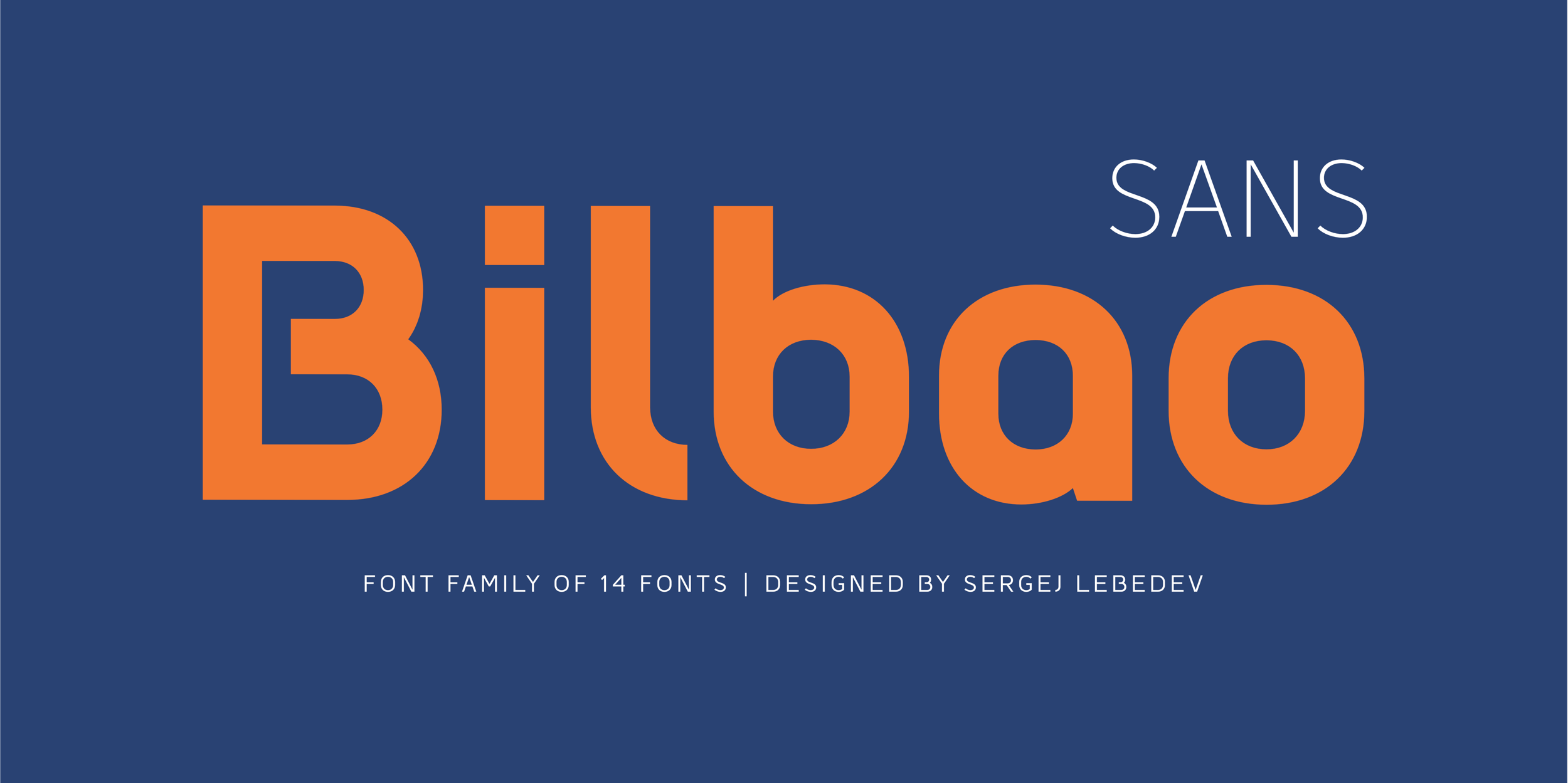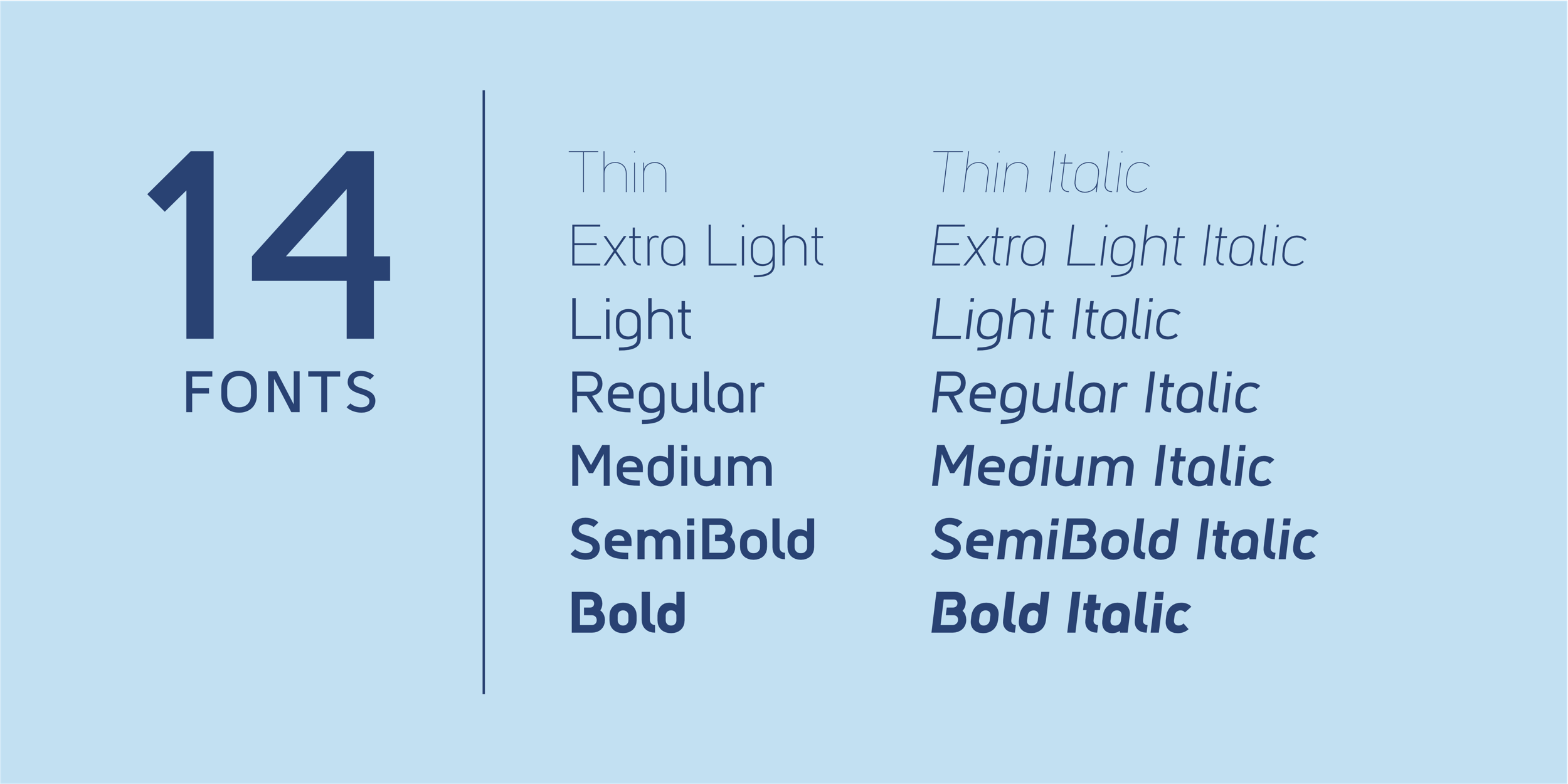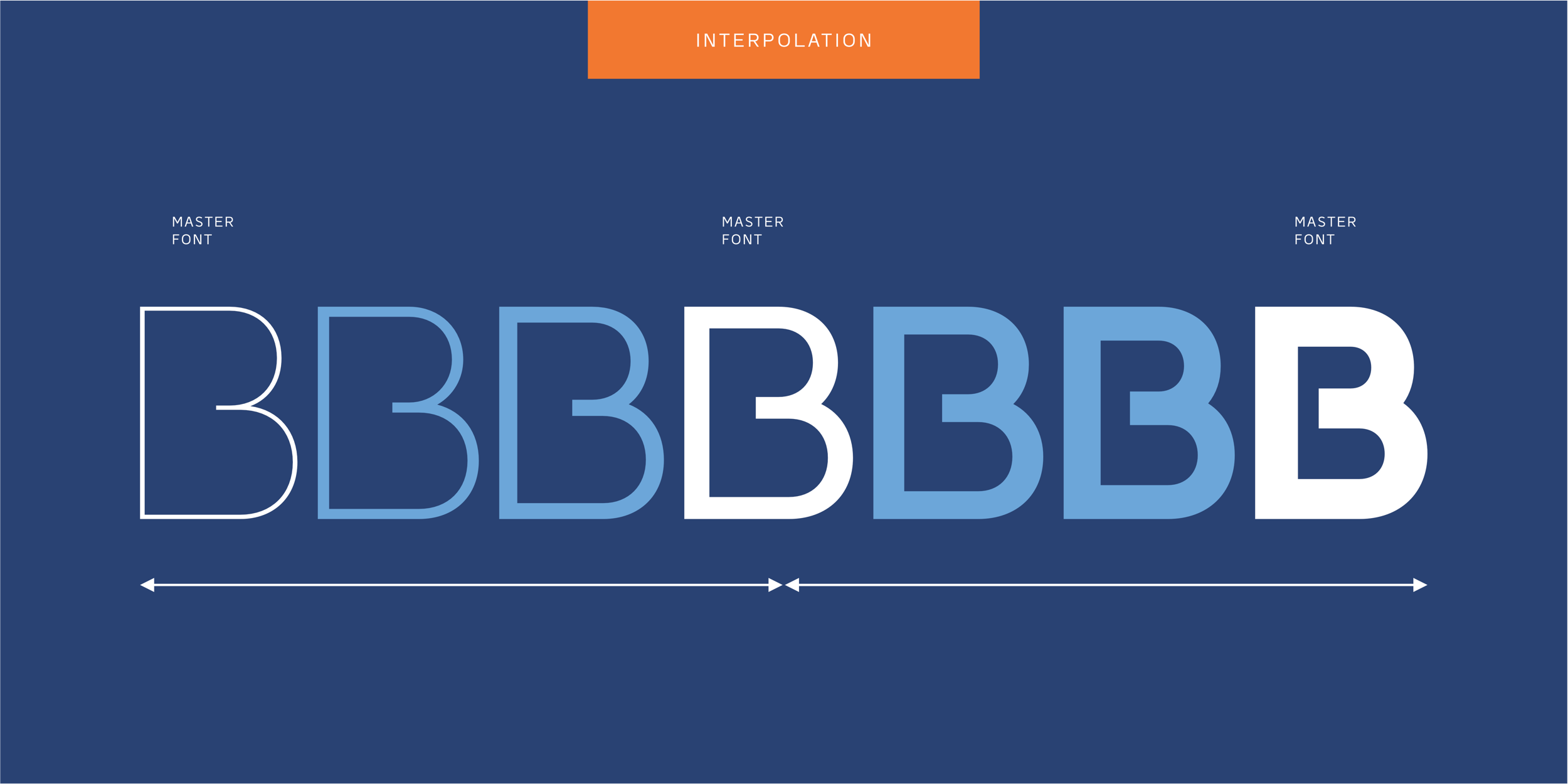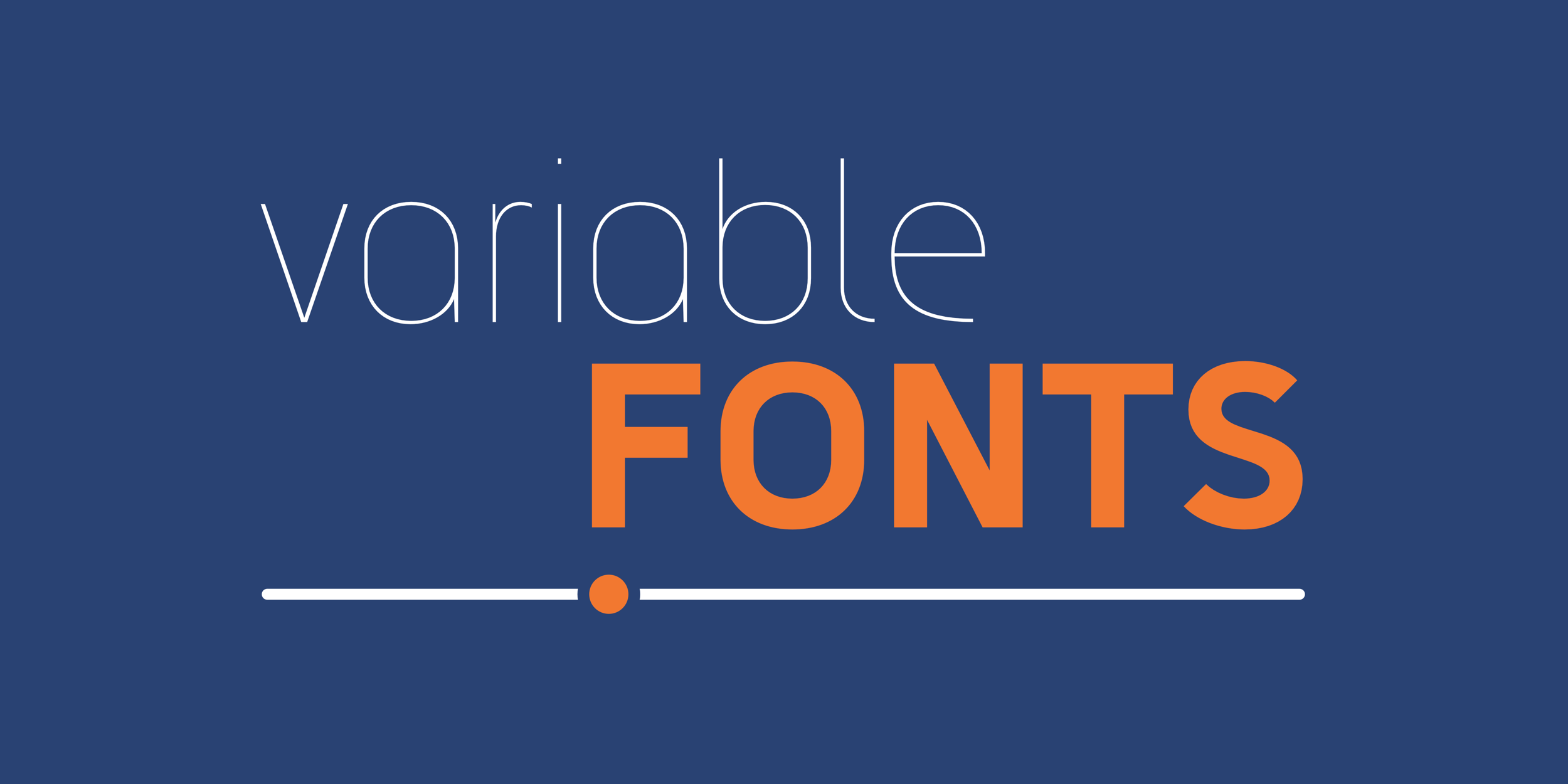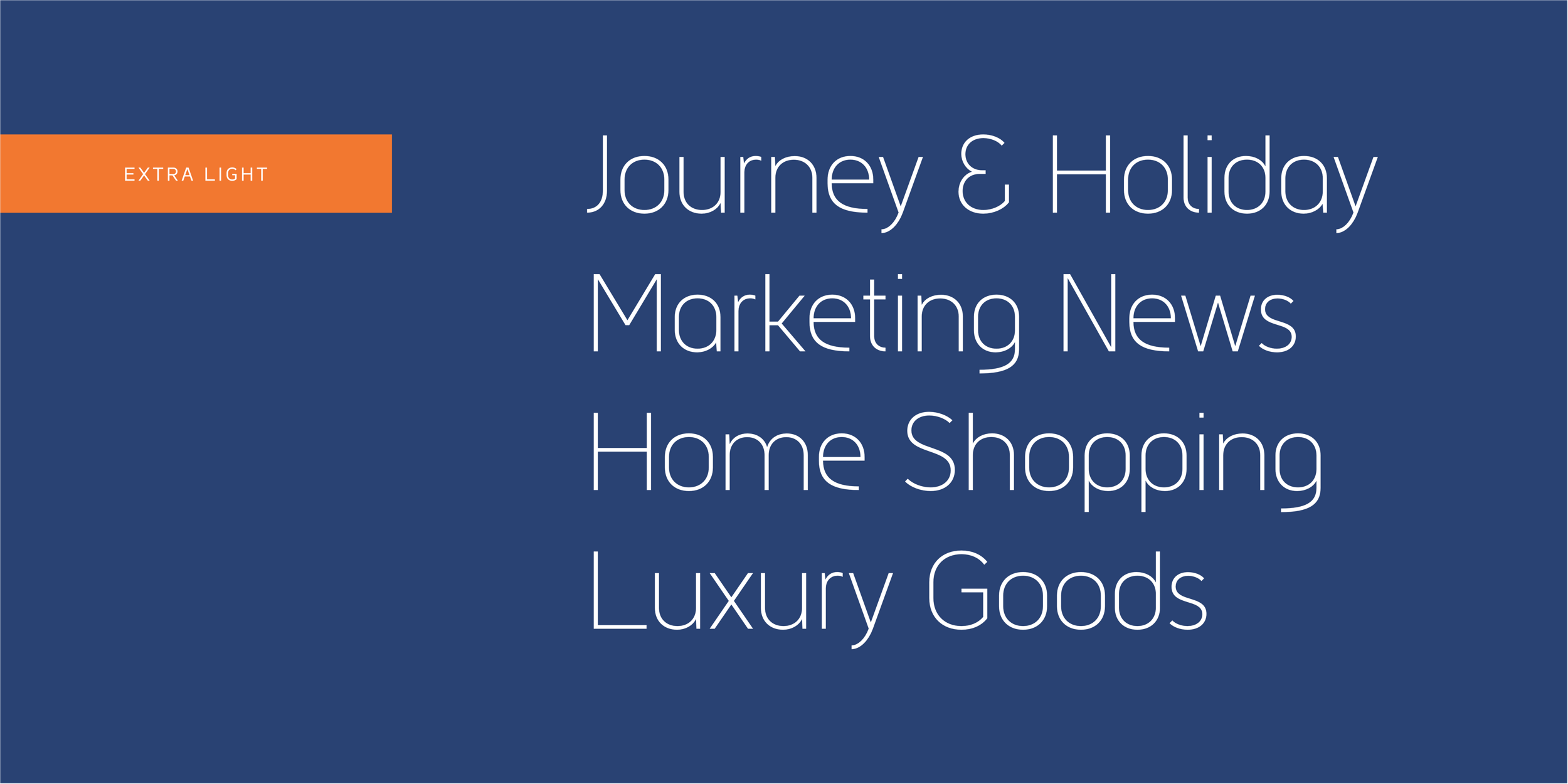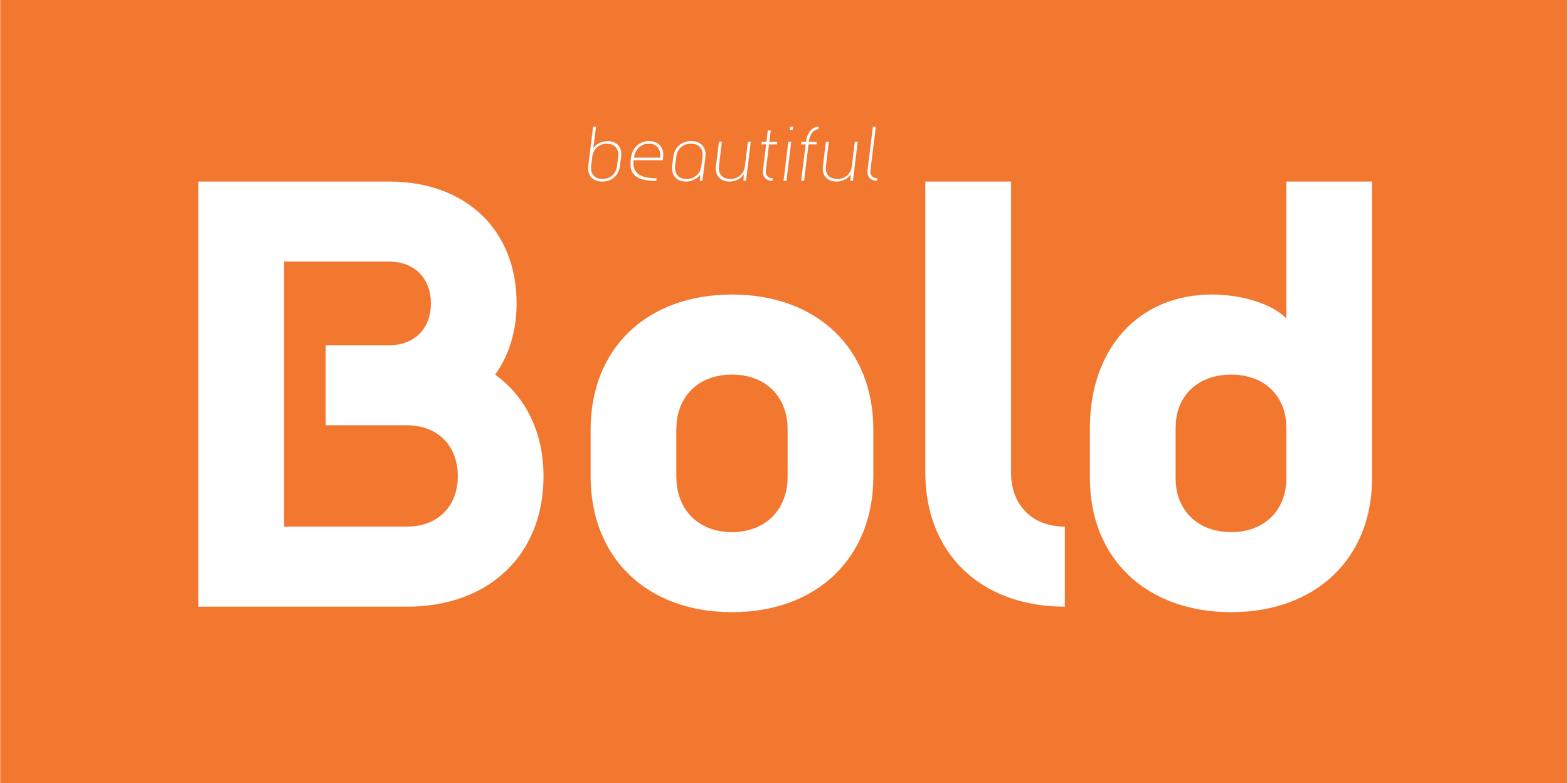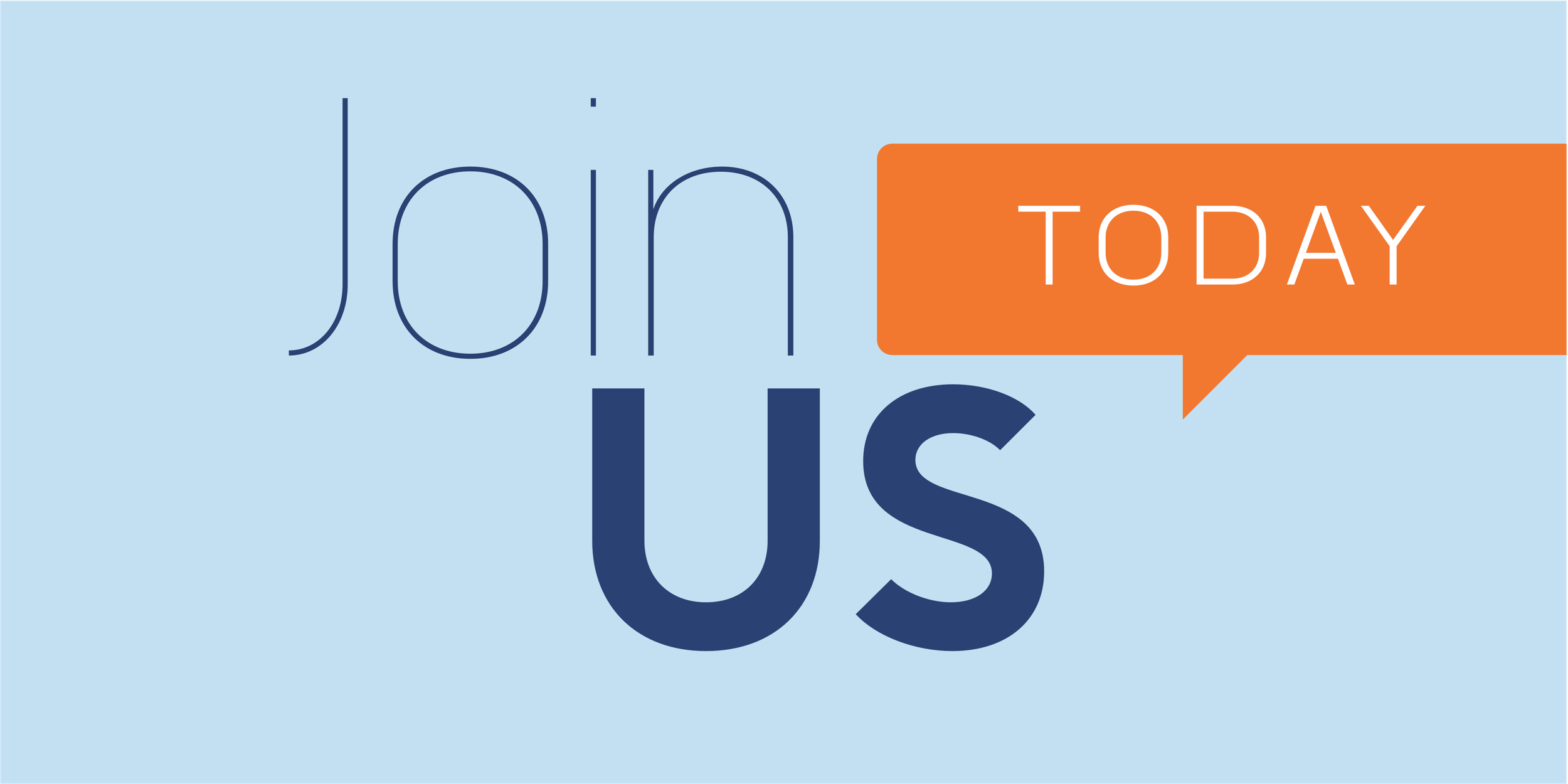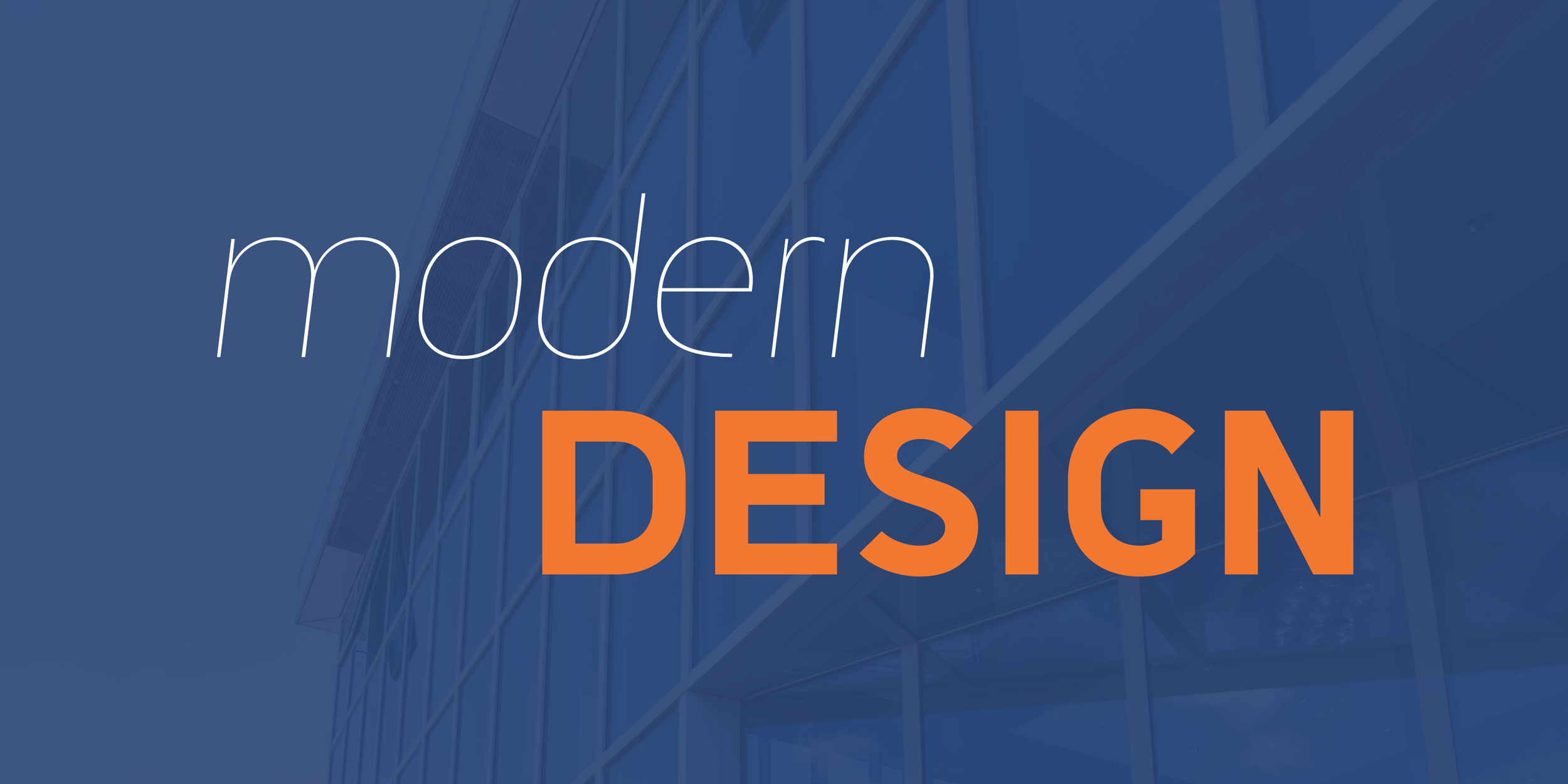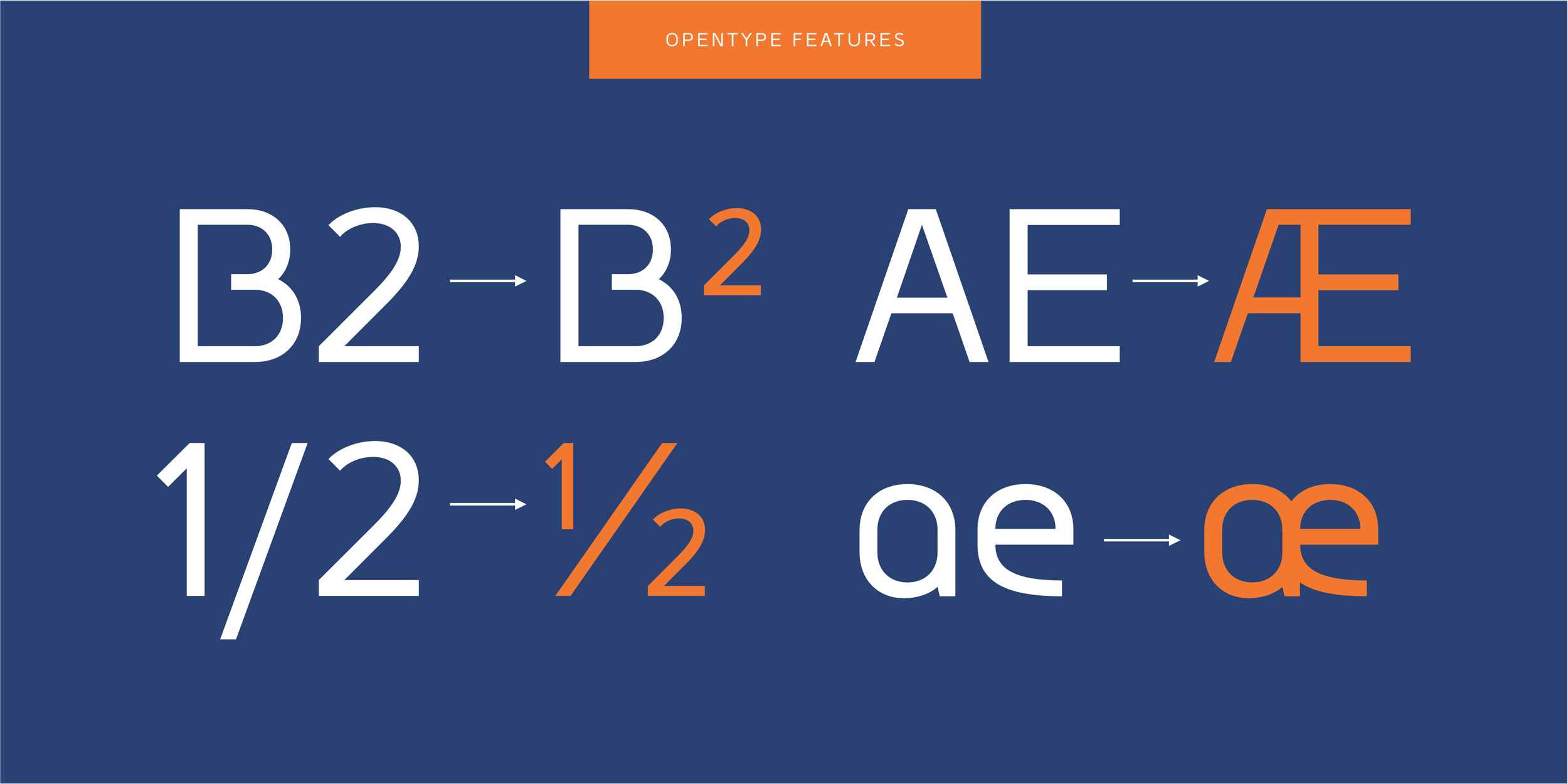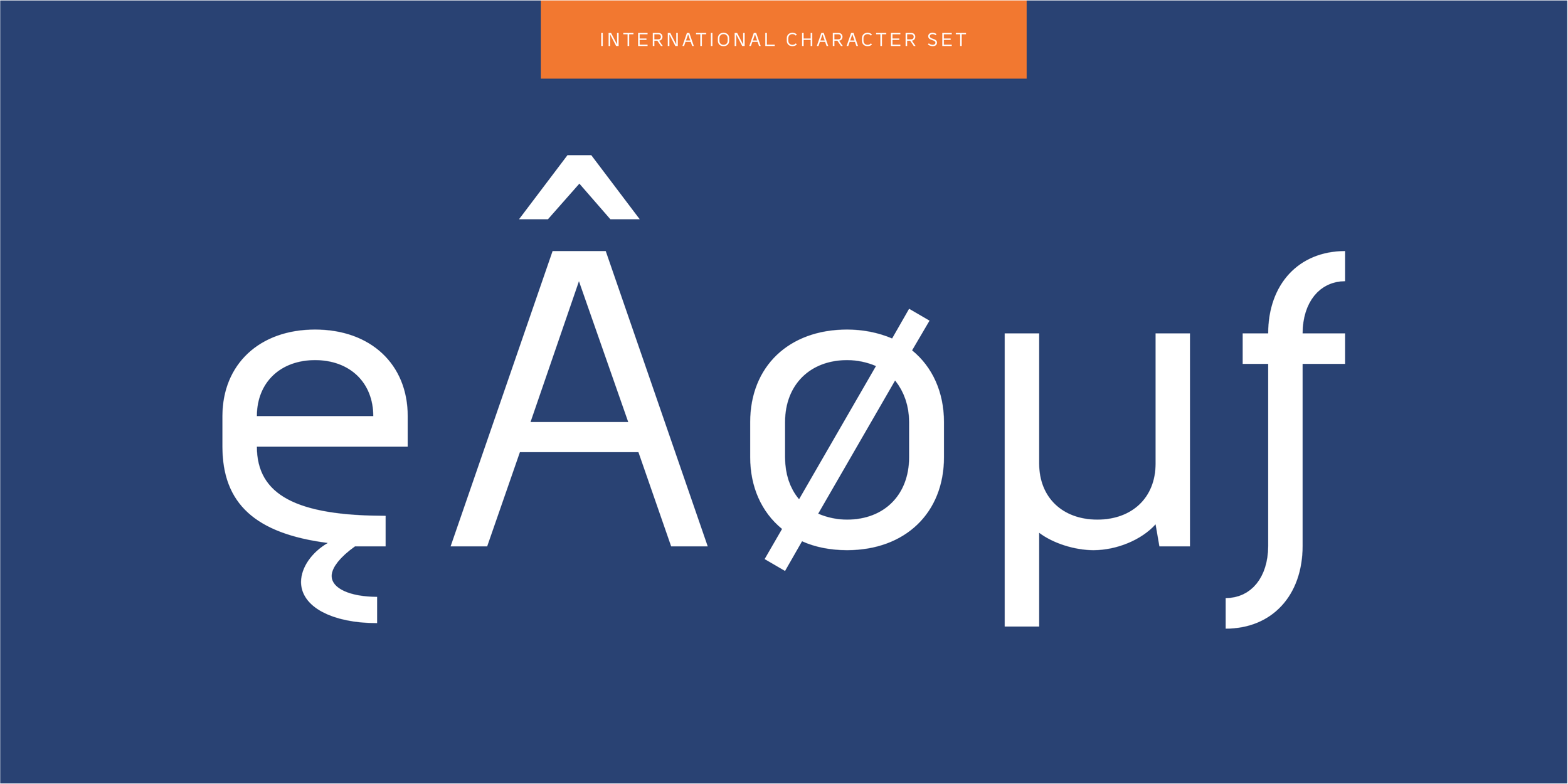
Bilbao Sans font family of 14 fonts and two variable fonts.
Bilbao Sans font family
Bilbao Sans font family consists of 14 standard fonts and two variable fonts, offering a versatile and refined solution for a wide range of design projects. With its clean, modern forms and extensive international character set, Bilbao Sans provides a wealth of OpenType features, allowing for maximum creative flexibility. Whether you’re working on corporate identity, branding, editorial design, or web projects, Bilbao Sans delivers professional typography that adapts effortlessly to every application. Blending rounded shapes with functional clarity, Bilbao Sans embodies a timeless style that serves as the perfect foundation for any design. From bold logos to elegant editorial layouts, it elevates your work to new heights, ensuring a striking yet harmonious visual impact.
Named after the vibrant city of Bilbao in Spain, renowned for its fusion of ancient and modern architecture and world-class museums, the typeface draws inspiration from the city’s rich cultural diversity. This unique blend is reflected in the design, offering a sophisticated balance of tradition and innovation.
Bilbao Sans is a modern font family comprising 14 fonts.
Bilbao Sans - Master fonts. Interpolation.
Bilbao Sans - variable fonts
Bilbao Sans - modern typography
Bilbao Sans Typeface. Beautiful Bold.
Bilbao Sans: type design ranging from thin to bold.
Bilbao Sans modern font design
Bilbao Sans Typeface - OpenType Features
Bilbao Sans Typeface - International charcter set.